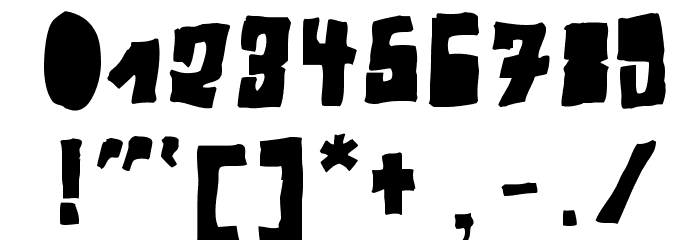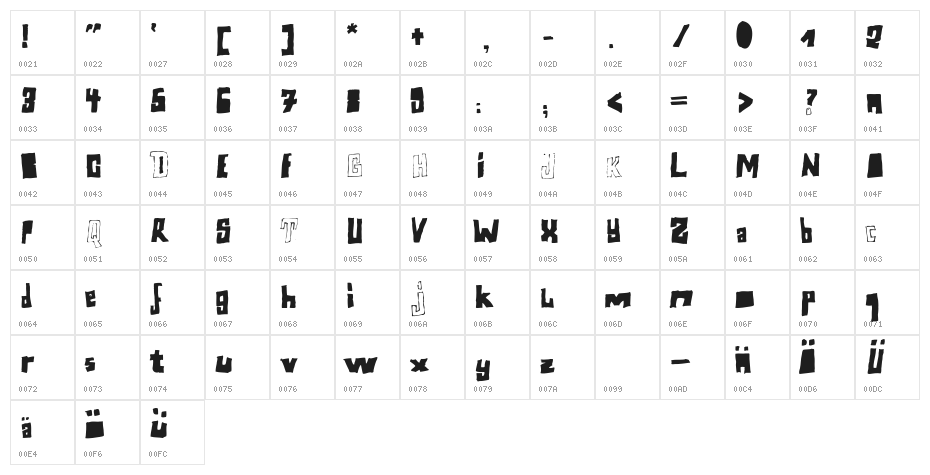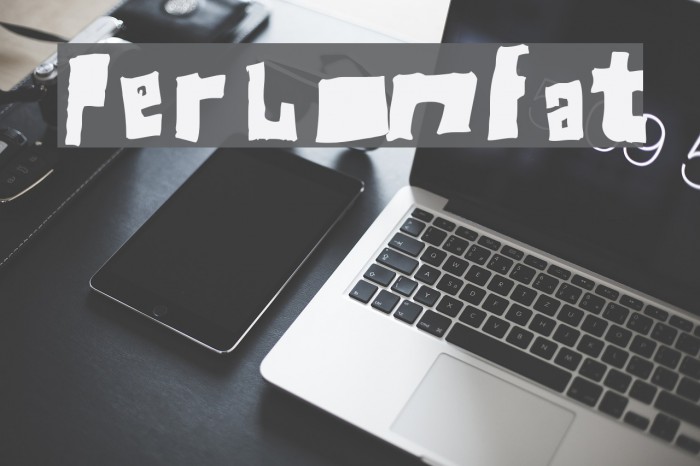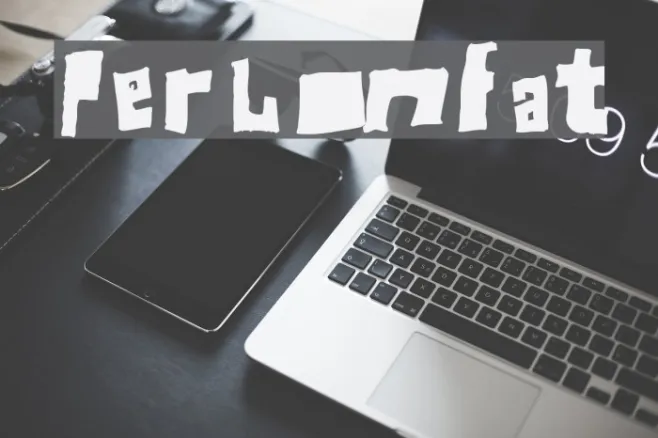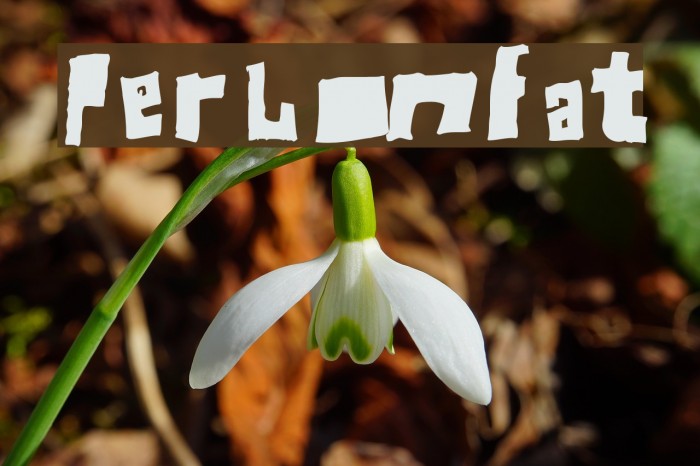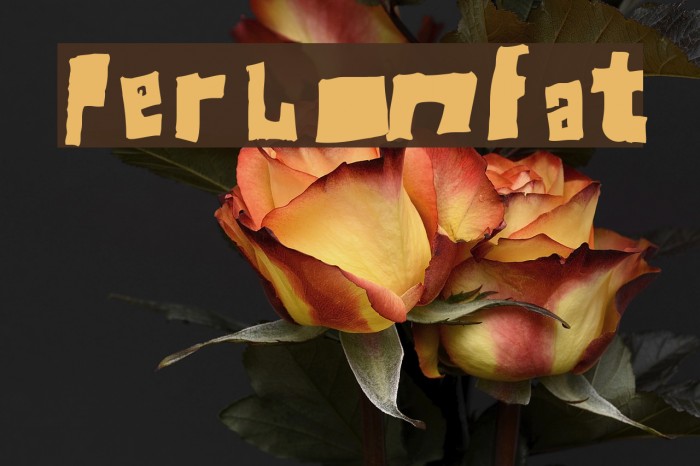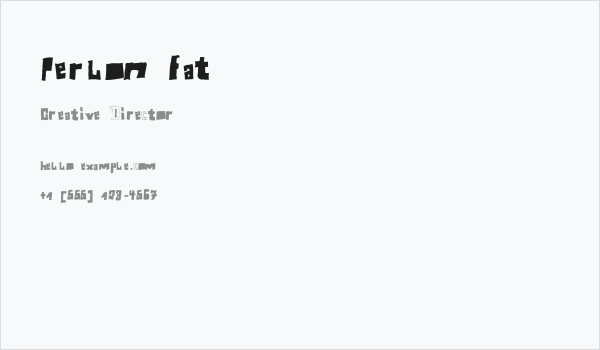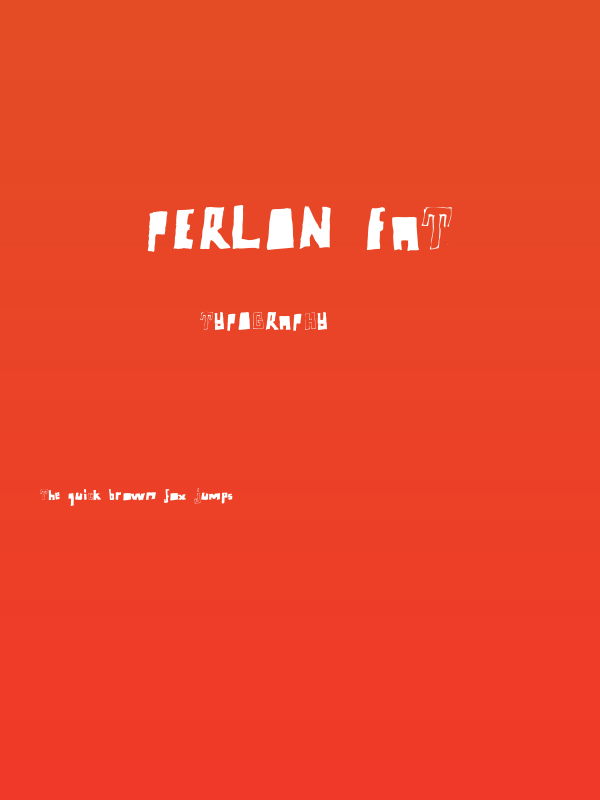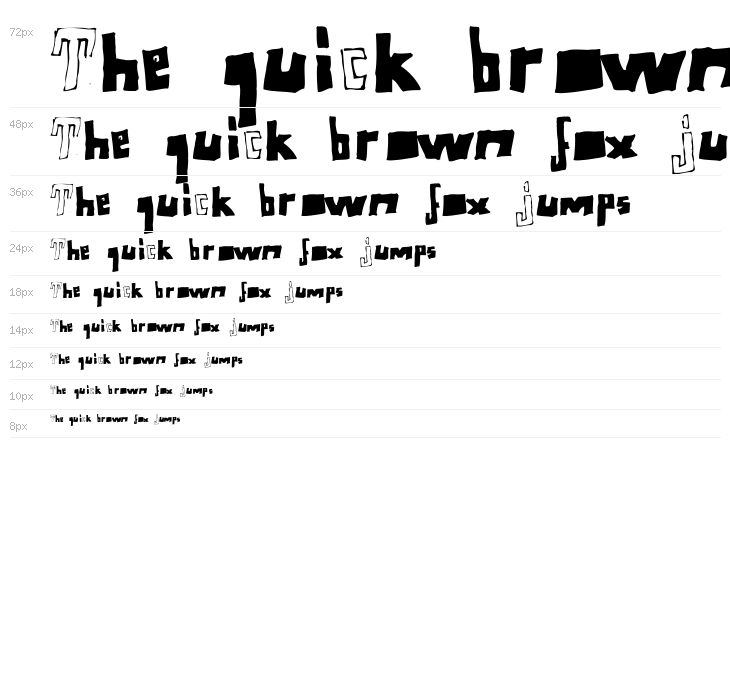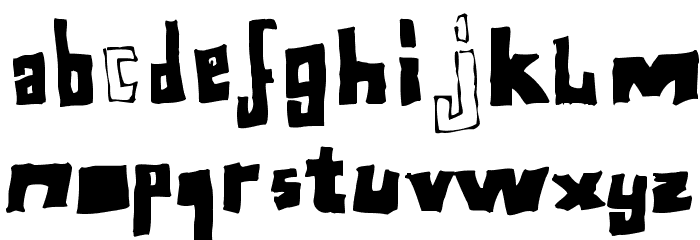
Perlon Fat Font
Perlon Fat Description
This font features a bold and playful design with a hand-drawn aesthetic. The characters are irregular and chunky, giving a sense of spontaneity and creativity. The uppercase and lowercase letters maintain a consistent style, with exaggerated curves and varying line thicknesses that add to its quirky charm. Numbers and special characters follow the same playful theme, making it suitable for projects that require a fun and informal touch. The overall appearance is dynamic and eye-catching, perfect for grabbing attention.
| Overall Style | Playful, Creative |
| Proposed Projects | Ideal for children's books, comic strips, playful branding, and creative posters. |